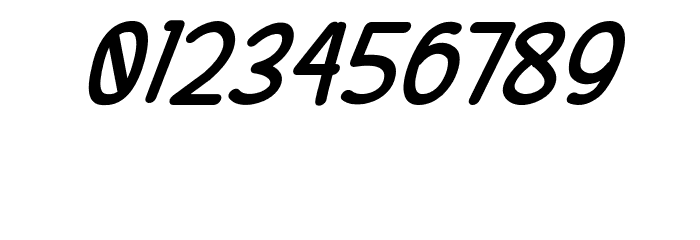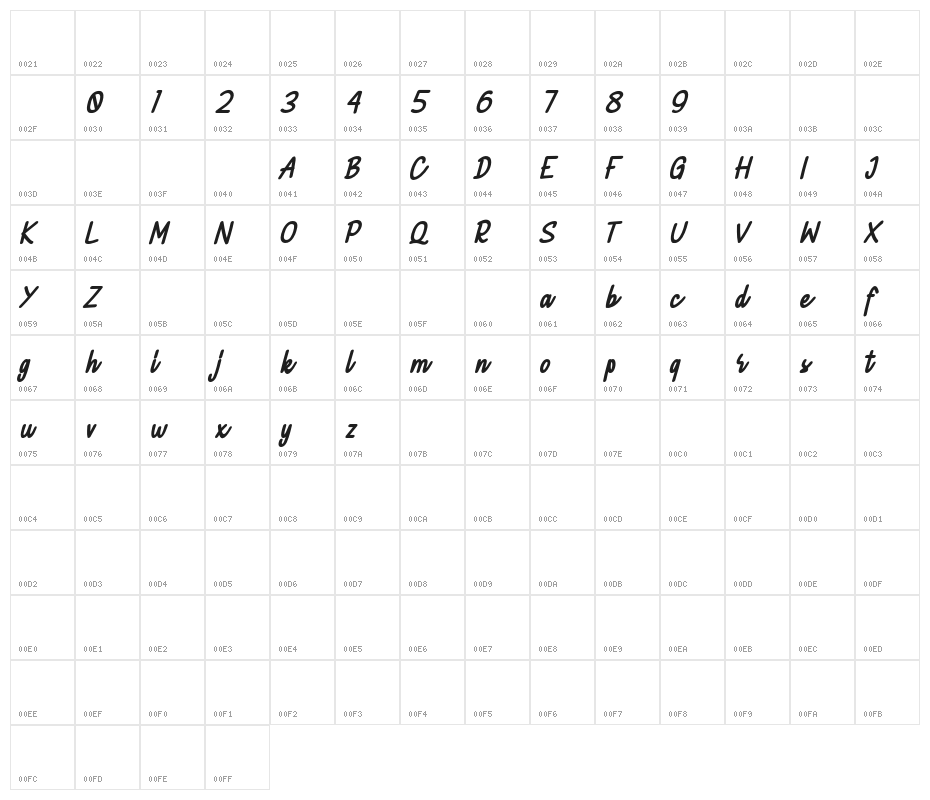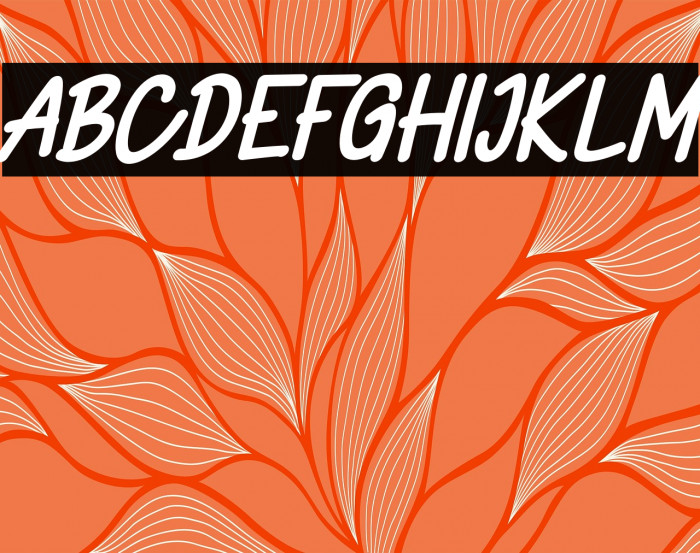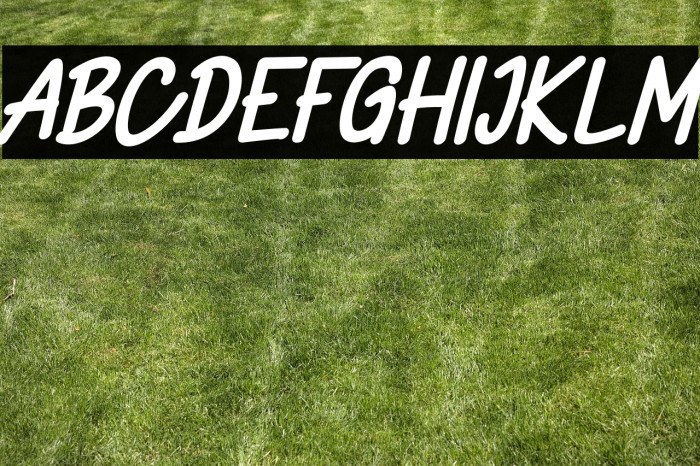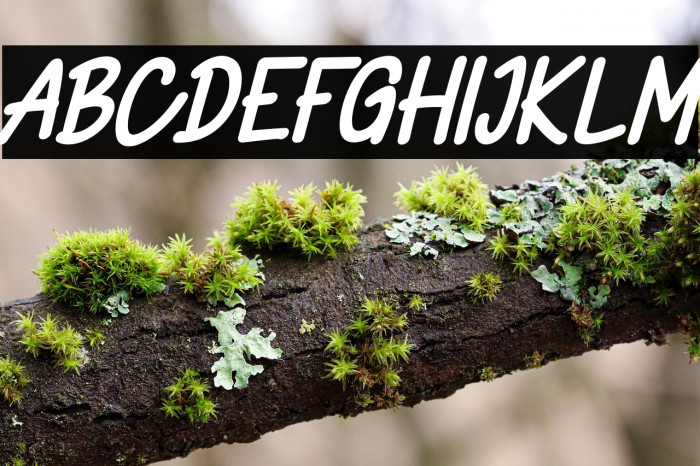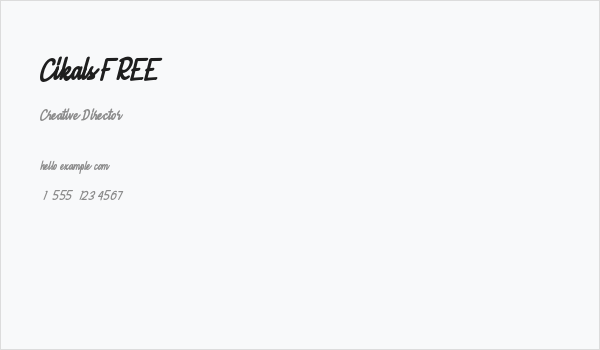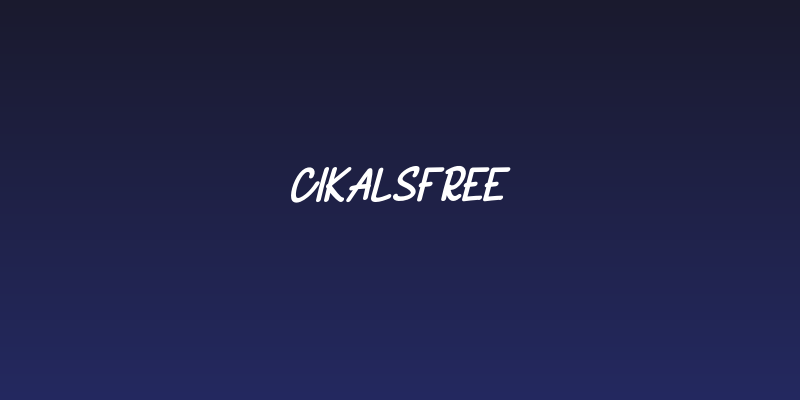
CikalsFREE Font
CikalsFREE Description
This font features a dynamic and energetic script style with a handwritten appearance. The characters are slightly slanted, giving a sense of motion and fluidity. The uppercase letters are bold and prominent, while the lowercase letters maintain a consistent flow with smooth curves and rounded edges. The numerals are clear and legible, matching the overall style of the alphabet. The special characters are well-integrated, maintaining the font's cohesive look. This font's playful and casual vibe makes it suitable for creative and informal projects.